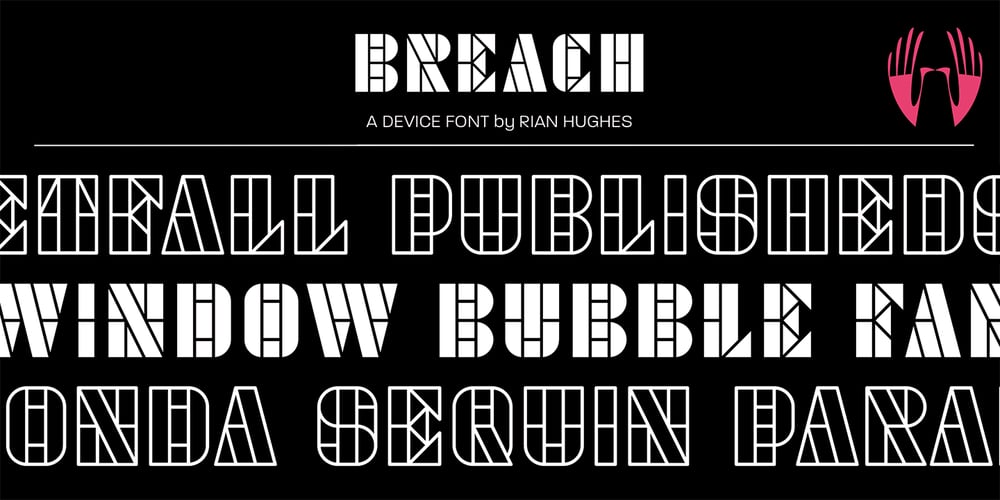
Breach Font Family was designed by Rian Hughes and published by Device. Breach contains 2 styles and family package options. Beach is a geometric stencil font in two variants. Powerful, futuristic and unique.